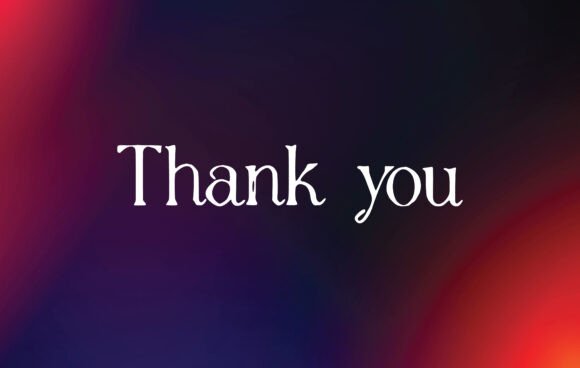
Introducing Benny Font: Elevate Your Creative Projects with a Lovely Handwritten Style
In the world of typography, a font can make all the difference in bringing your creative ideas to life. If you’re looking for a unique and beautiful handwritten font to take your projects to the next level, look no further than Benny Font. This lovely and elegant font is designed to help you create stunning visual content that captures the attention of your audience.
What Makes Benny Font Special?
Benny Font is a carefully crafted handwritten font that boasts a distinctive and charming style. Its unique characteristics make it an ideal choice for a wide range of creative projects, from eye-catching logos and branding materials to inspiring quotes and social media graphics.
One of the standout features of Benny Font is its versatility. Whether you’re looking to create a bold and statement-making design or a more subtle and elegant one, this font adapts seamlessly to your needs. Its smooth and flowing lines, combined with its elegant letterforms, make it perfect for adding a touch of sophistication and personality to your designs.
The Benefits of Using Benny Font
So, why choose Benny Font for your creative projects? Here are just a few benefits of using this beautiful handwritten font:
- Ease of use: Benny Font is incredibly easy to use, even for those who are new to design. Its clean and intuitive lines make it simple to work with, allowing you to focus on bringing your creative vision to life.
- High versatility: As mentioned earlier, Benny Font is highly versatile and can be used for a wide range of projects, from logos and branding to quotes and social media graphics.
- Unique style: Benny Font boasts a unique and distinctive style that sets it apart from other fonts. Its elegant and charming letterforms make it perfect for adding a touch of personality to your designs.
- Time-saving: With Benny Font, you can create stunning designs in a fraction of the time it would take with other fonts. Its ease of use and versatility make it an ideal choice for designers who need to work quickly and efficiently.
Ideal Uses for Benny Font
Benny Font is an incredibly versatile font that can be used for a wide range of creative projects. Here are some ideal uses for this beautiful handwritten font:
- Logos and branding: Benny Font is perfect for creating eye-catching logos and branding materials that capture the attention of your audience.
- Quotes and social media graphics: This font is ideal for creating inspiring quotes and social media graphics that showcase your message in a clear and elegant way.
- Posters and flyers: Benny Font can be used to create stunning posters and flyers that grab the attention of your audience and leave a lasting impression.
- Wedding and event invitations: This font is perfect for creating beautiful wedding and event invitations that set the tone for your special day.
Tips for Getting the Most Out of Benny Font
To get the most out of Benny Font, here are a few tips to keep in mind:
- Experiment with different colors: Benny Font looks great in a variety of colors, so don’t be afraid to experiment and find the perfect hue for your design.
- Play with font sizes: This font looks great in a range of font sizes, from large and bold to small and elegant.
- Use it with other fonts: Benny Font pairs well with other fonts, so feel free to experiment with different combinations to find the perfect look for your design.
- Pay attention to spacing: Make sure to pay attention to the spacing between letters and lines to ensure that your design looks clean and elegant.
In conclusion, Benny Font is a beautiful and versatile handwritten font that has the potential to take your creative ideas to the highest level. Its unique style, ease of use, and high versatility make it an ideal choice for a wide range of creative projects, from logos and branding to quotes and social media graphics.
Whether you’re a seasoned designer or just starting out, Benny Font is a great addition to your font library. So why not give it a try and see the difference it can make in your designs?